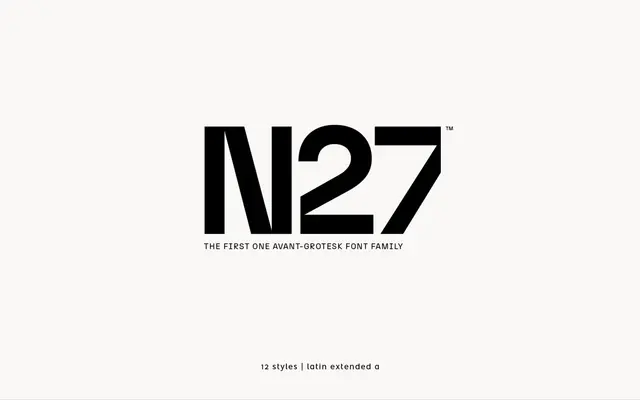
N27
atipo foundry · Raul Garcia del Pomar, Ismael Gonzalez (atipo) · 2017
N27 specimen from atipo foundry
Atipo's avant-grotesk in six weights with italics, built for editorial and identity work with stylistic alternates on tap.
A neo-grotesque sans by atipo described as their first avant-grotesk family. Twelve styles run across six weights from Thin to Bold with matching italics, and the family carries stylistic alternates that switch the look of selected characters along with fractions, superiors and ordinals. Latin language support covers the major European scripts. Atipo offer Regular and Italic as a free download with the rest of the family on a pay what you want basis.
Atipo describe N27 as their first avant-grotesk family, a neo-grotesque drawn for editorial and identity work with stylistic alternates that switch the look of selected characters.